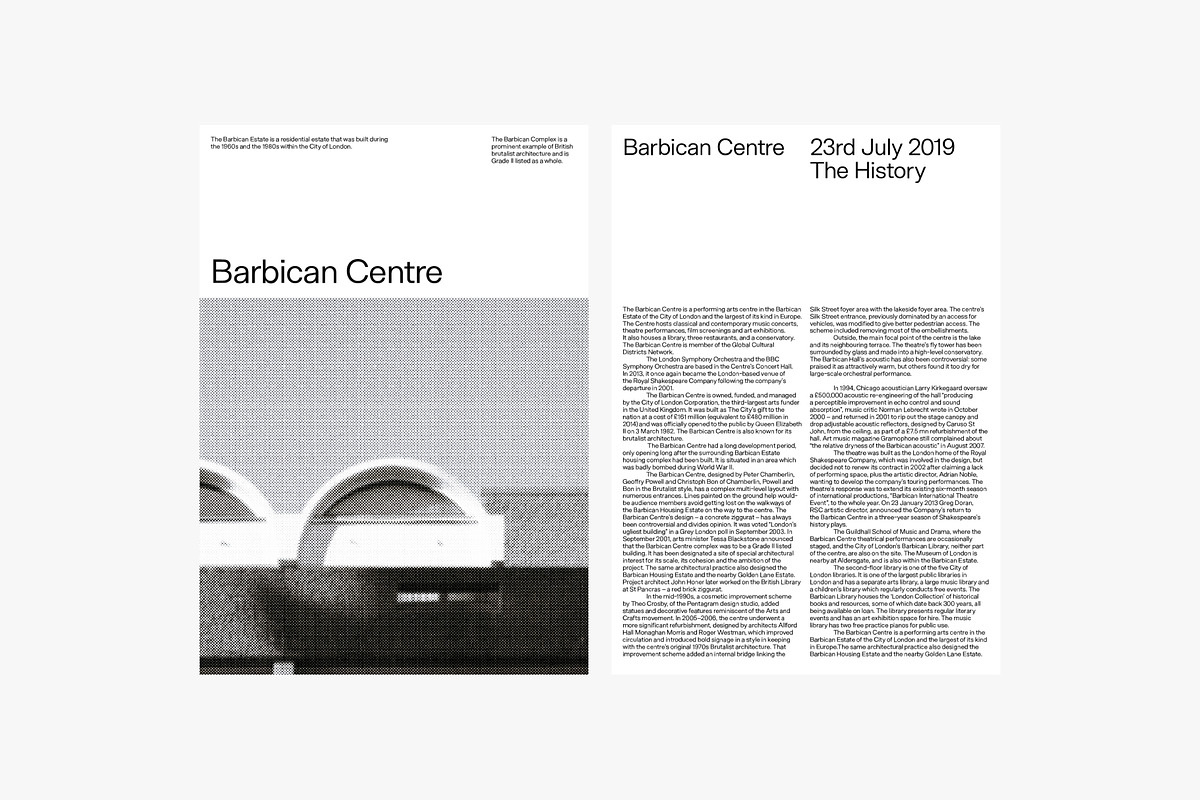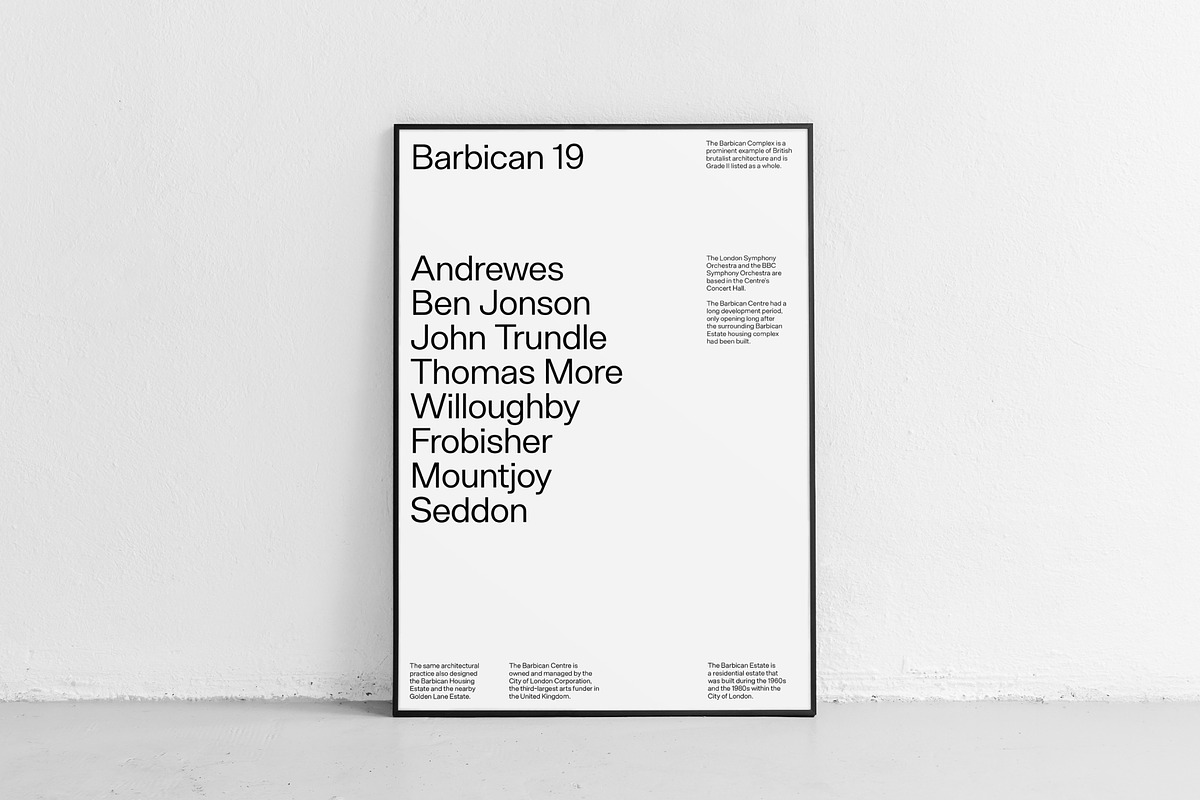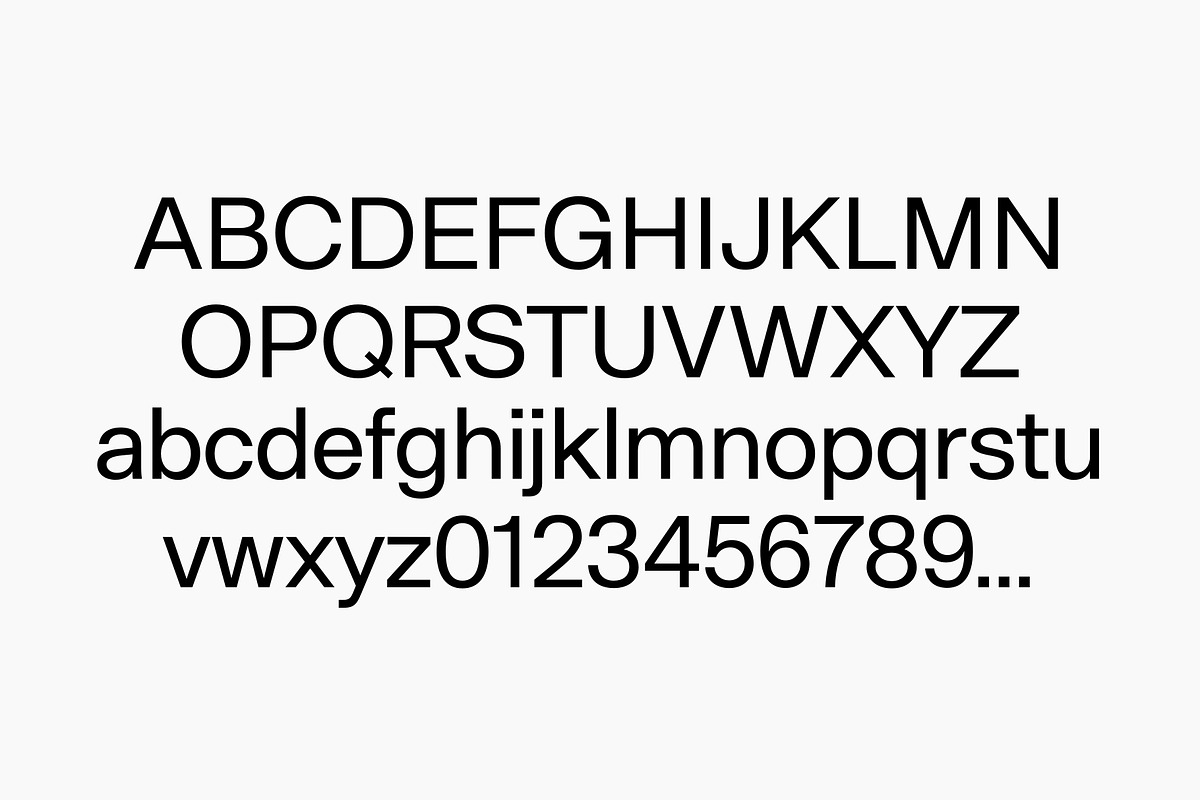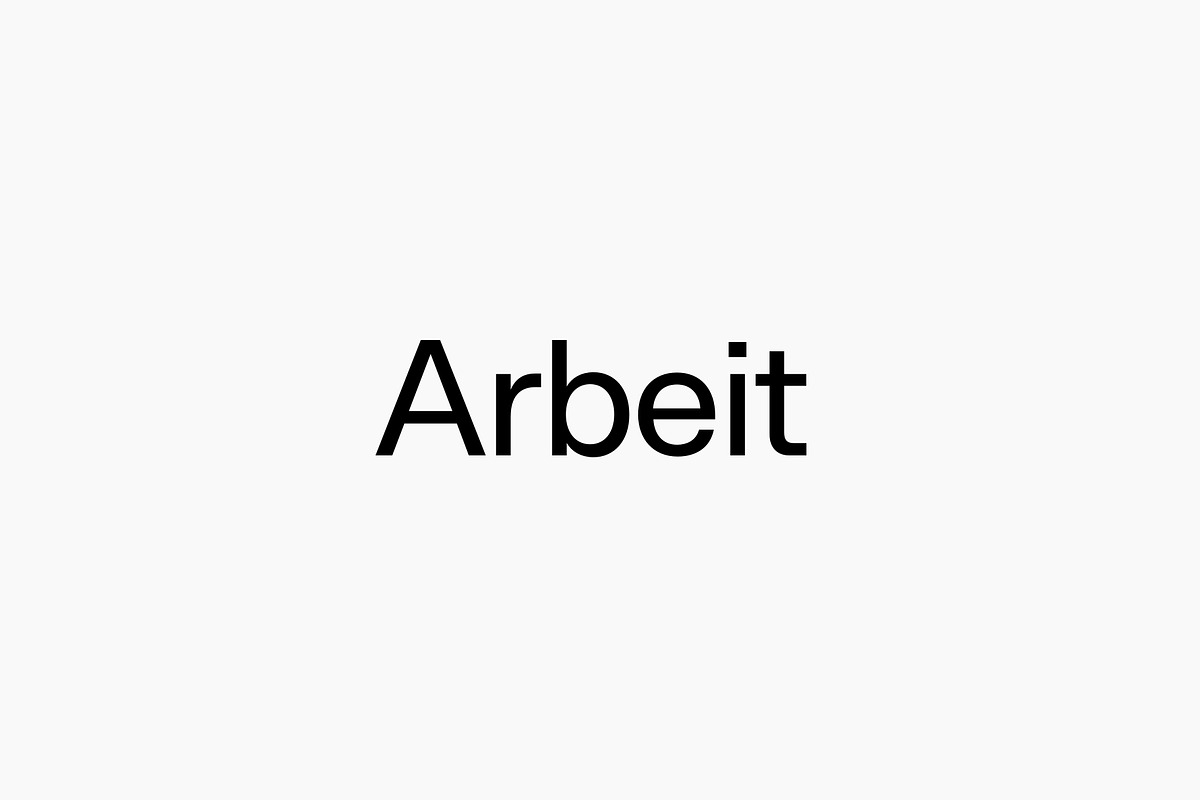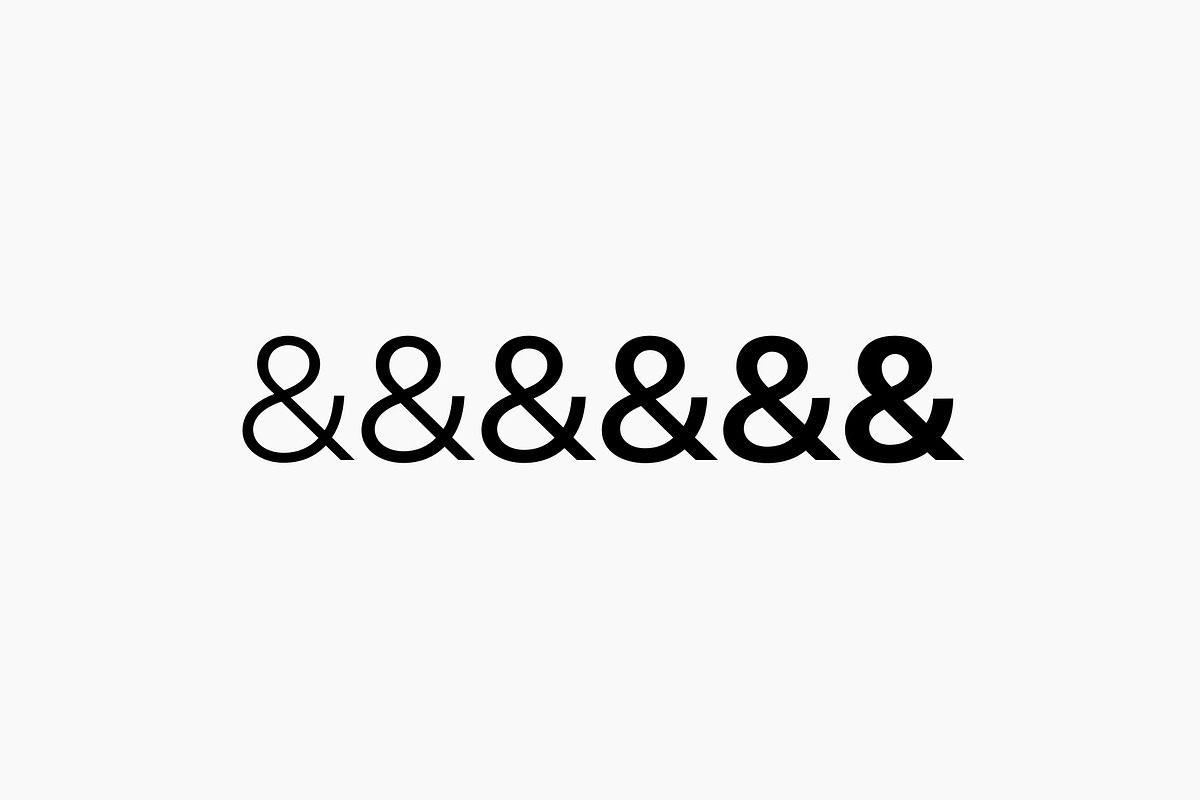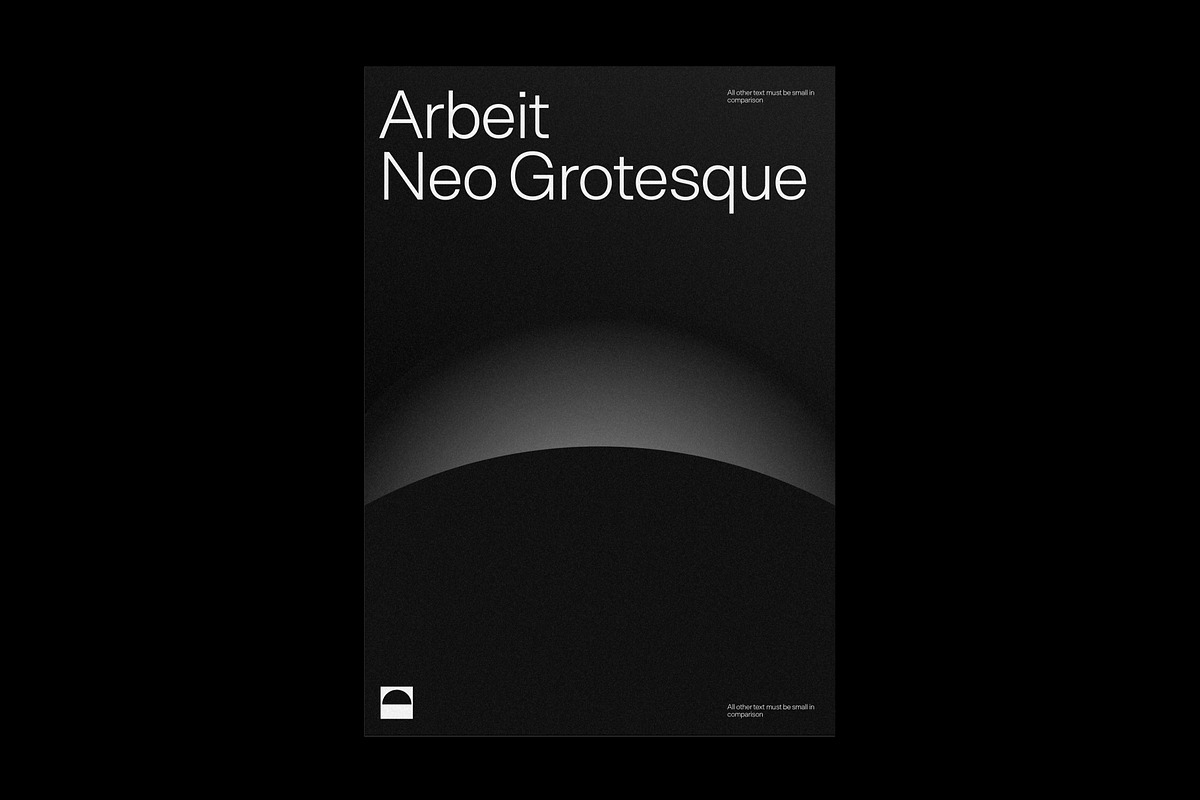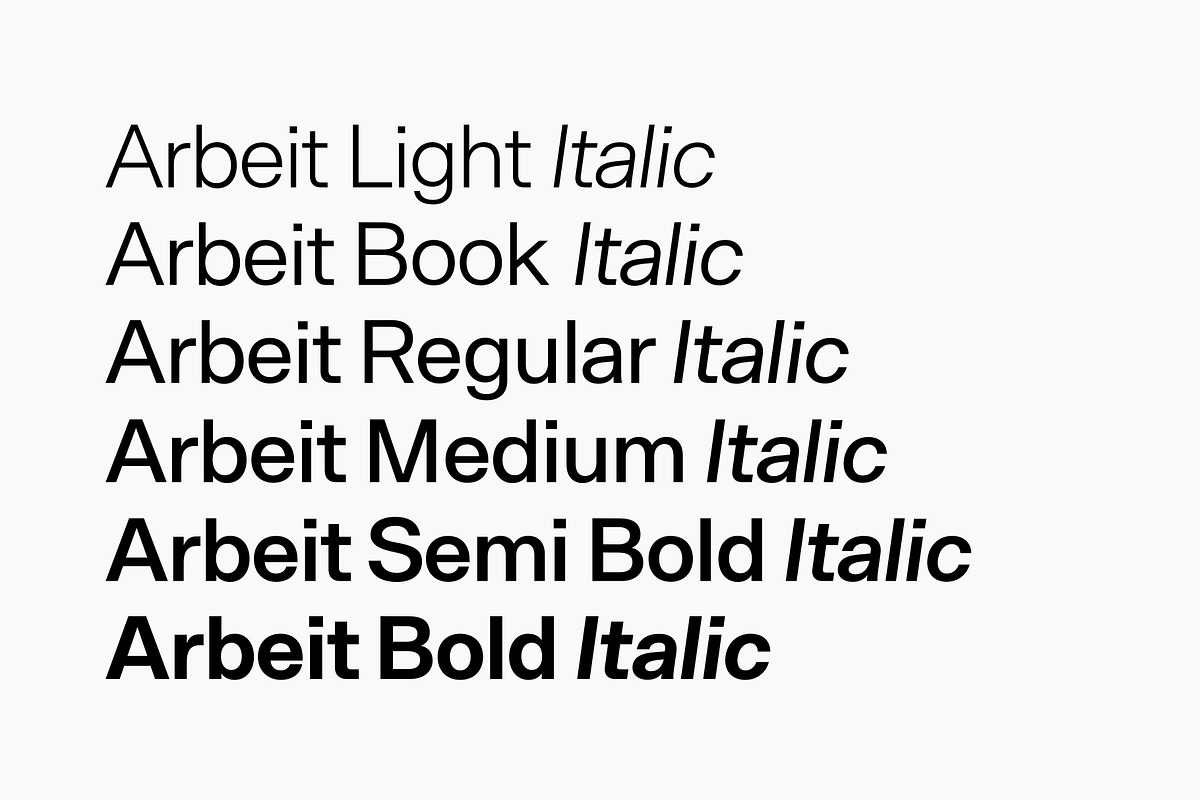
Arbeit - Full Family
6 weights, and italics
Arbeit is a functional Neo-Grotesque typeface. A variable version of the font is included with the complete family.
Languages: Baltic, Basic Latin, Central European, Dutch, Euro, Romanian, Turkish & Western European